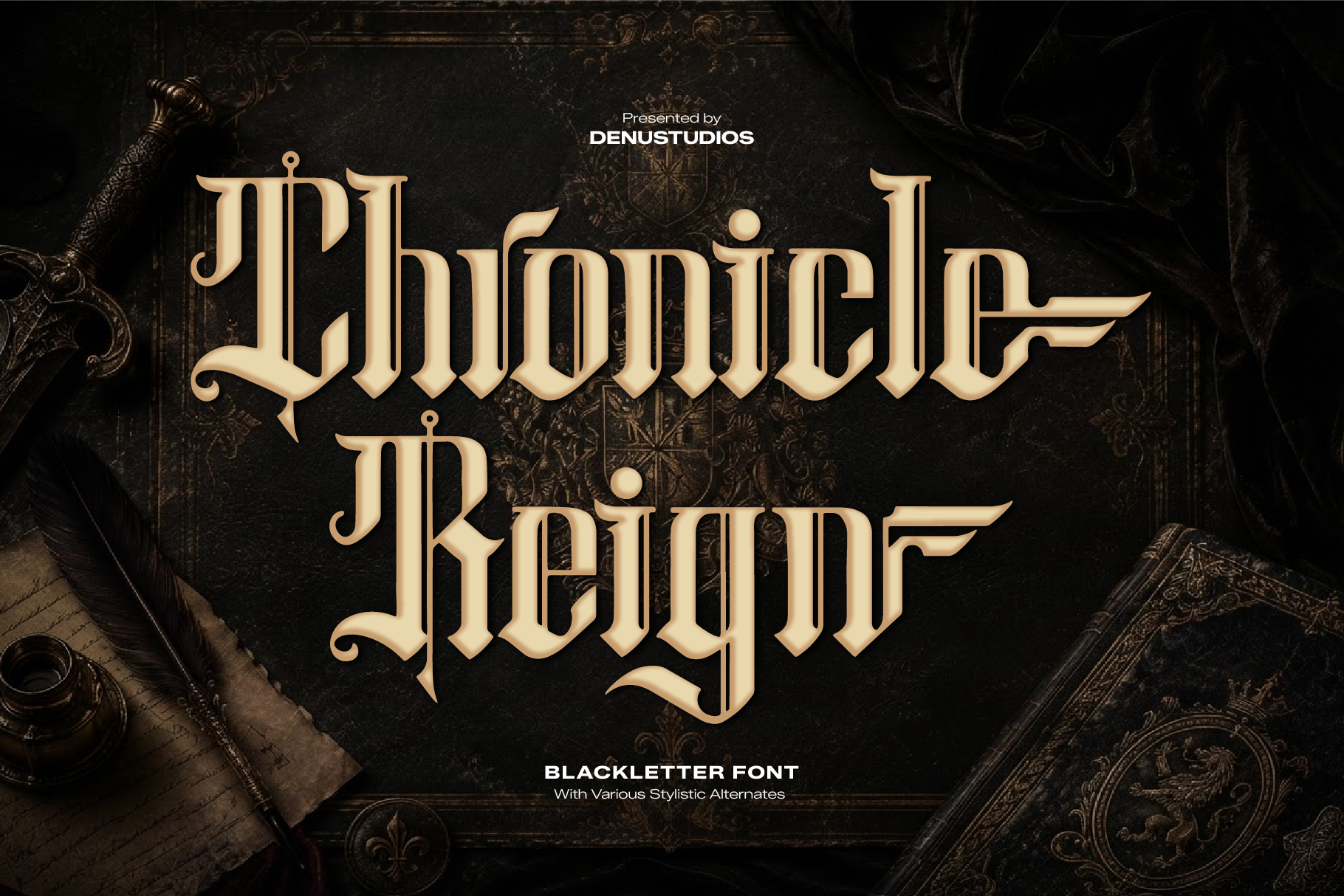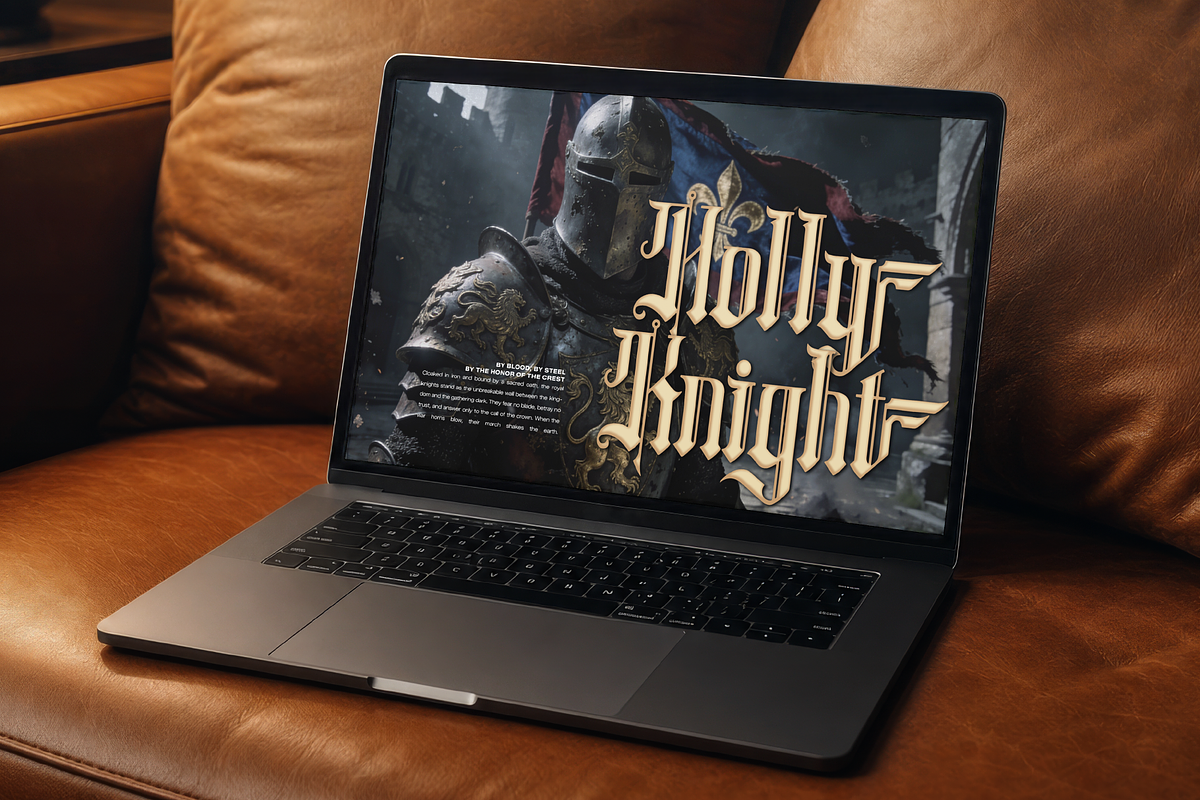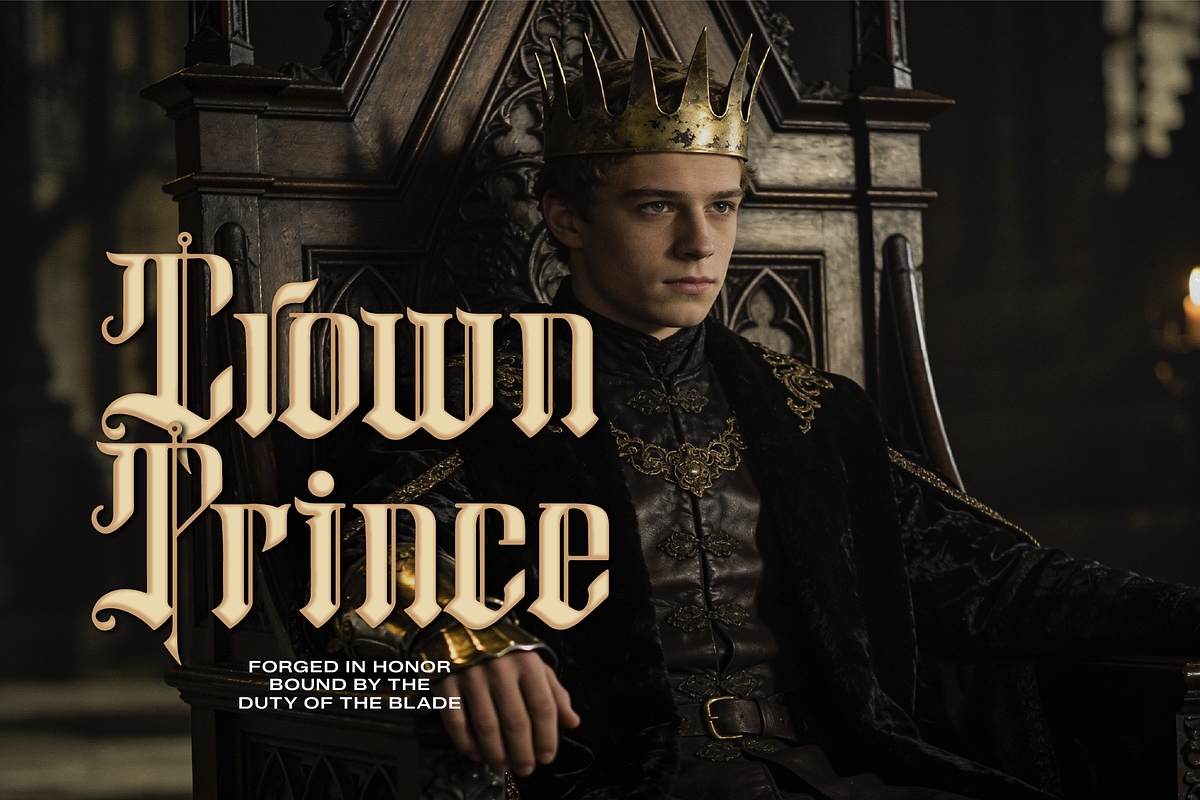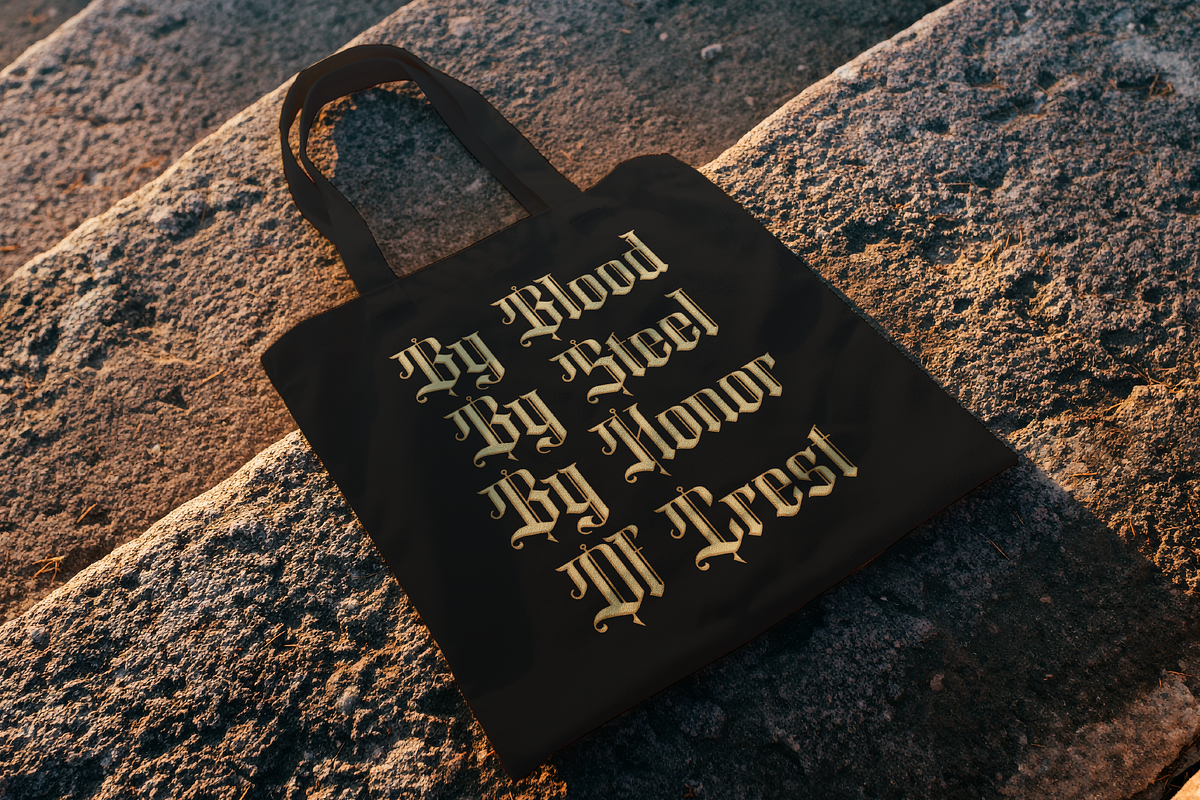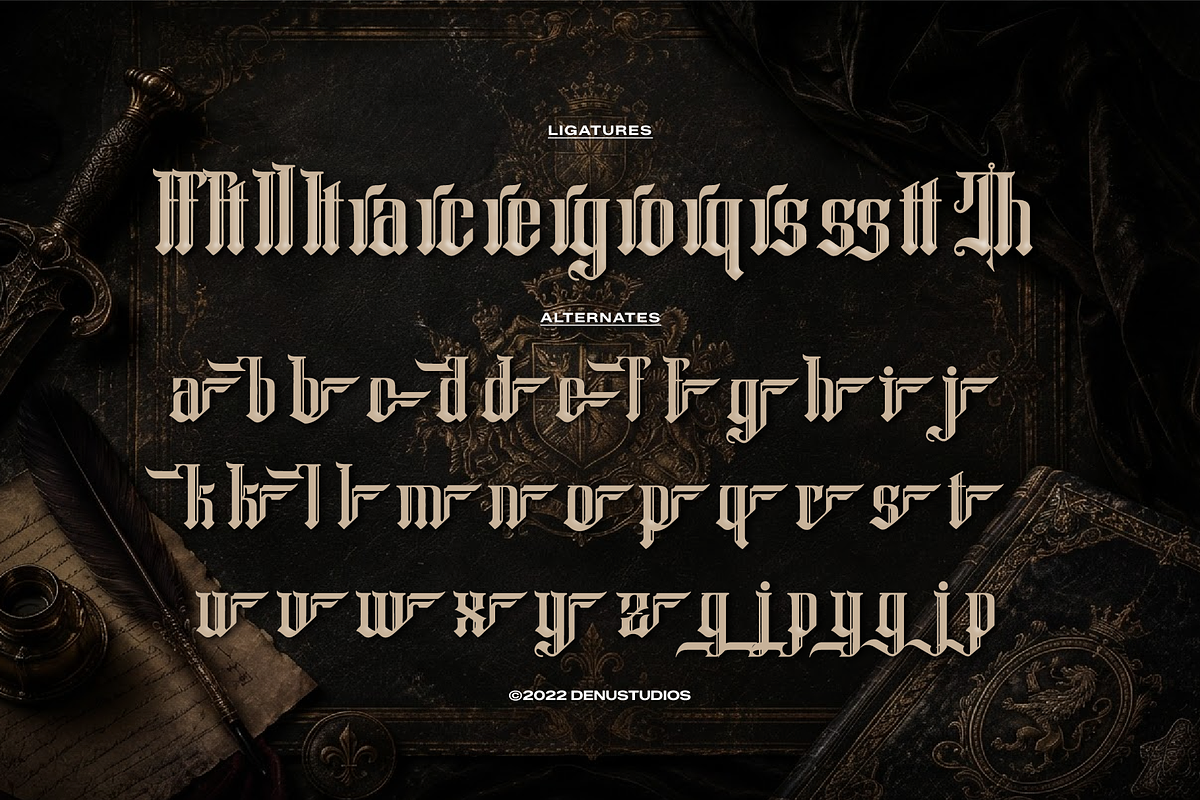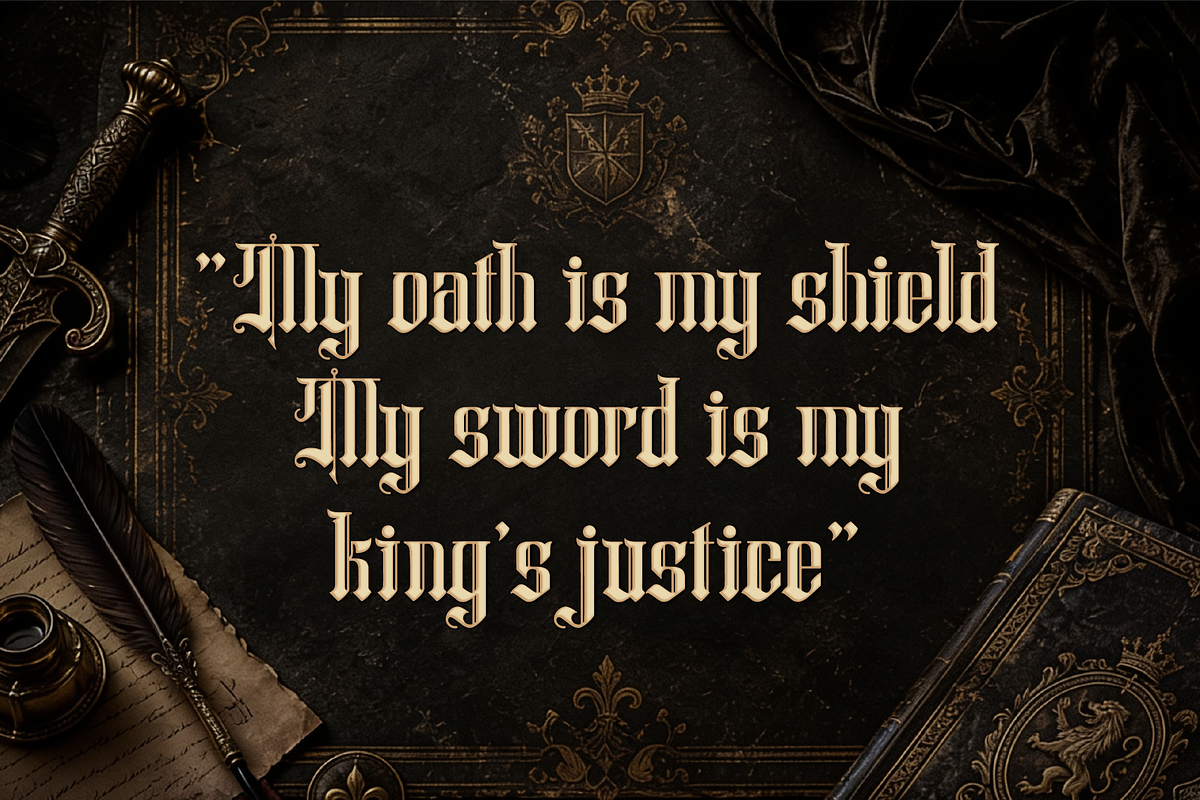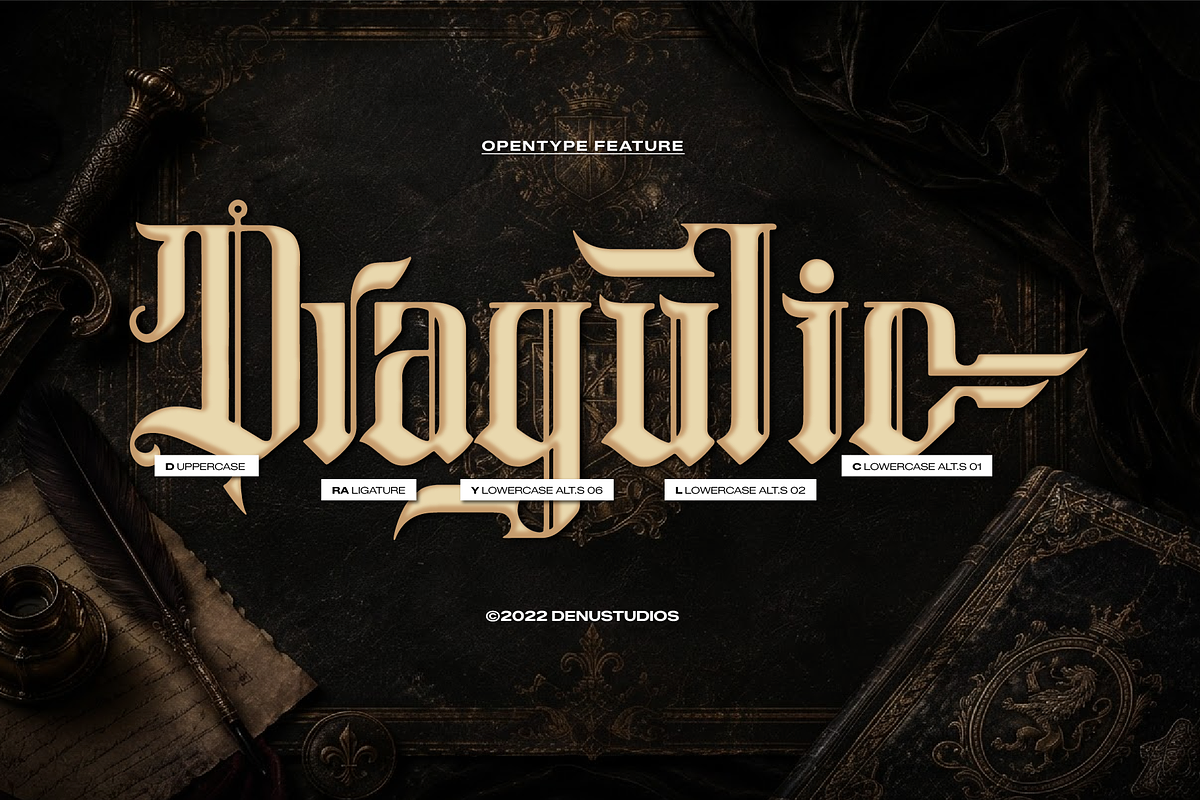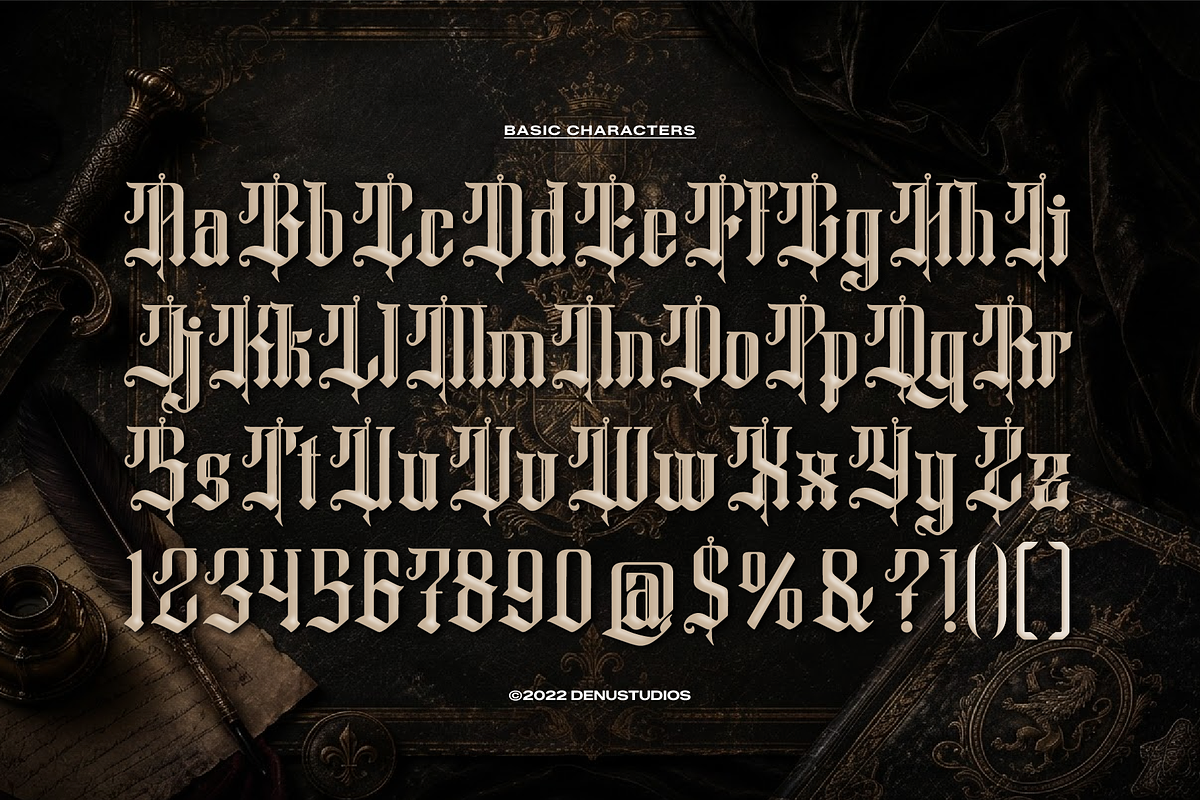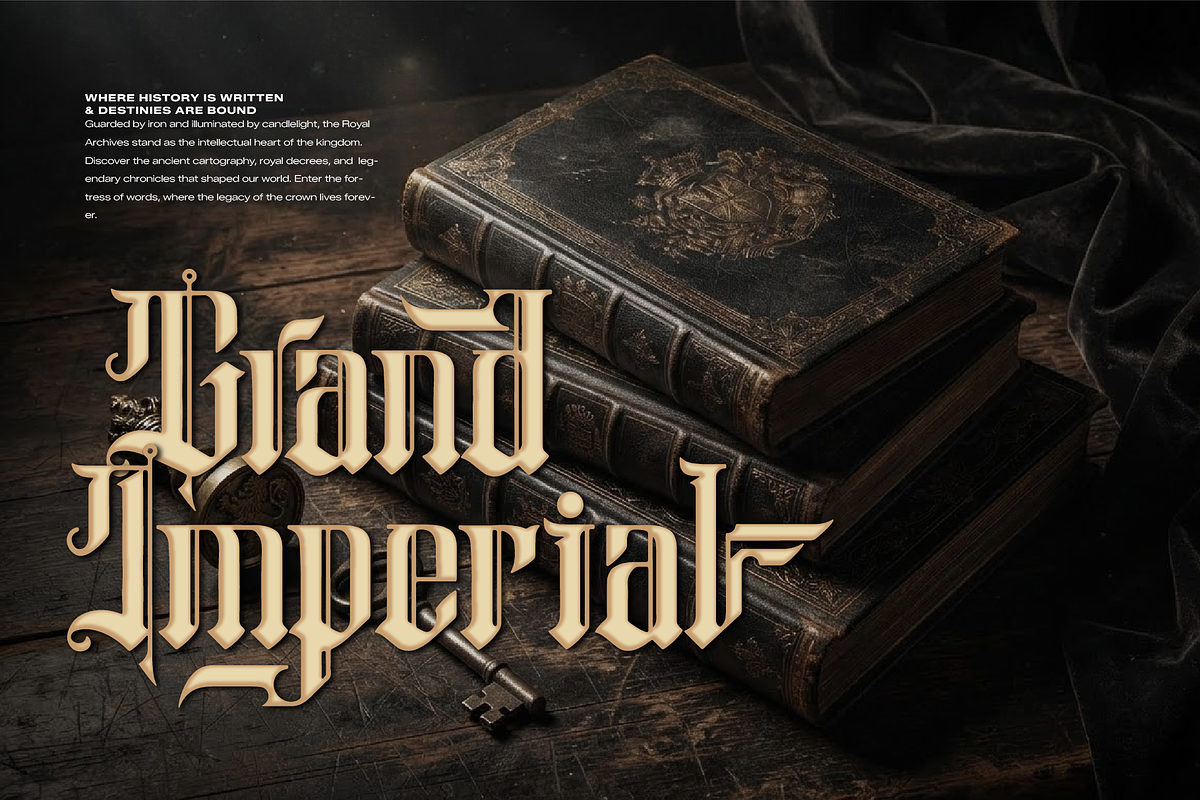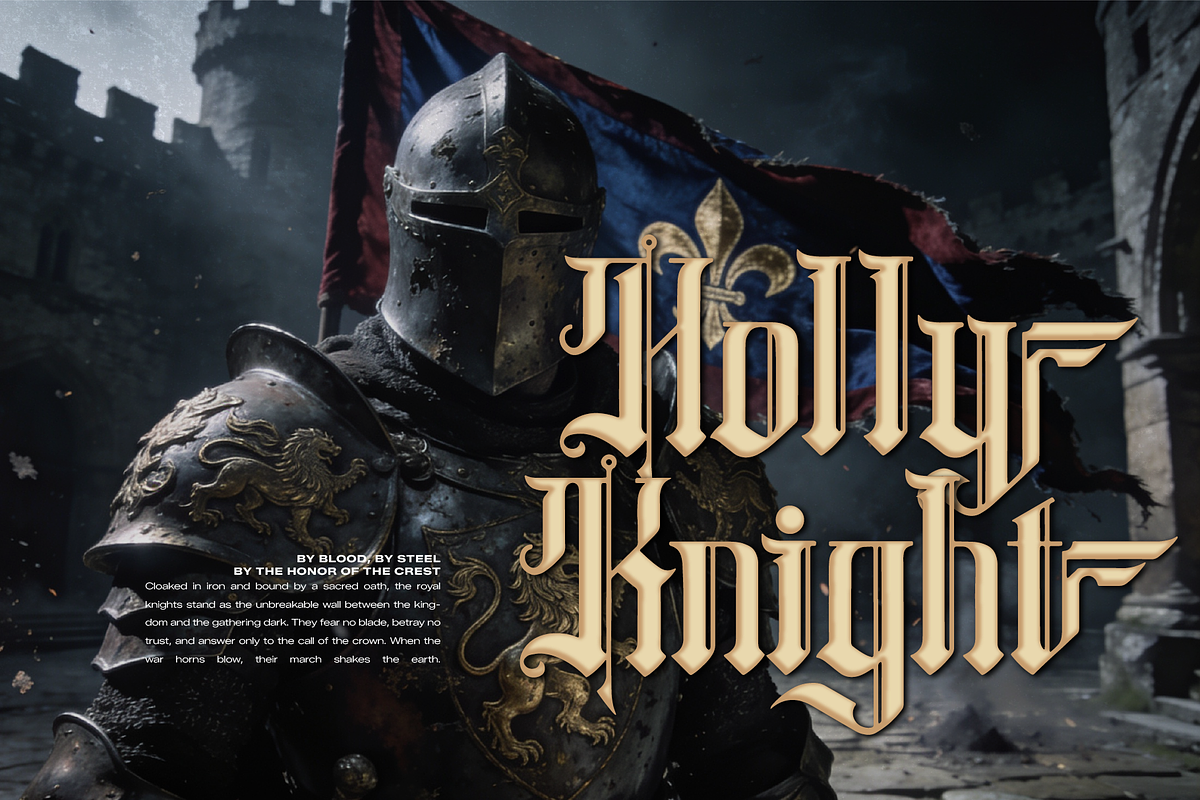
Chronicle Reign | Blackletter Font
Chronicle Reign | Blackletter Font, from Denustudios, suitable for any projects such as: logos, branding projects, homeware designs, product packaging, mugs, quotes, posters, shopping bags, t-shirts, book covers, name card, invitation cards, greeting cards, label, photography, watermark, special events, and all your other lovely projects that need a Blackletter taste.
Standard glyphs
Alternate and Ligature